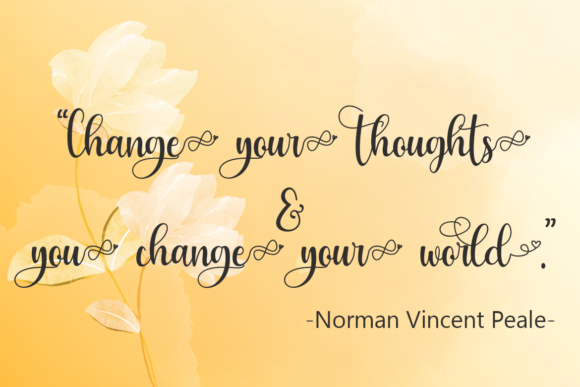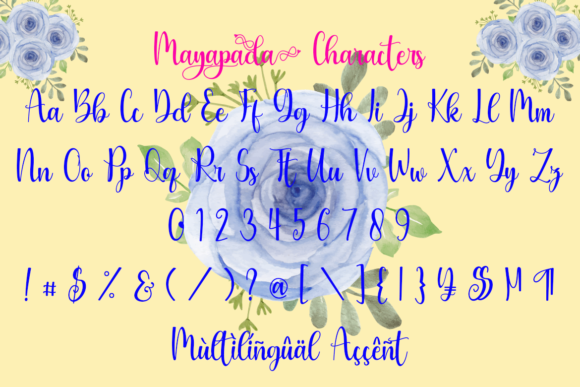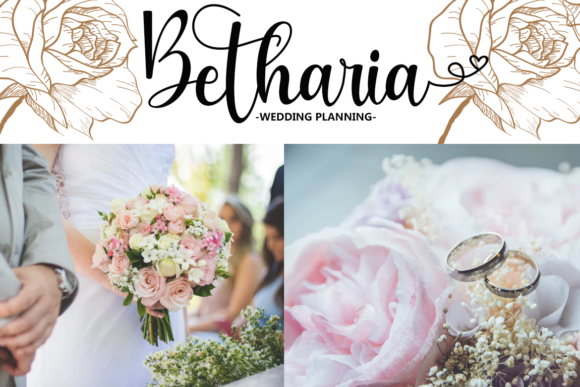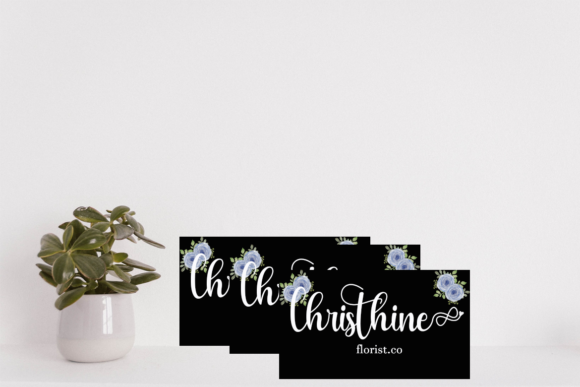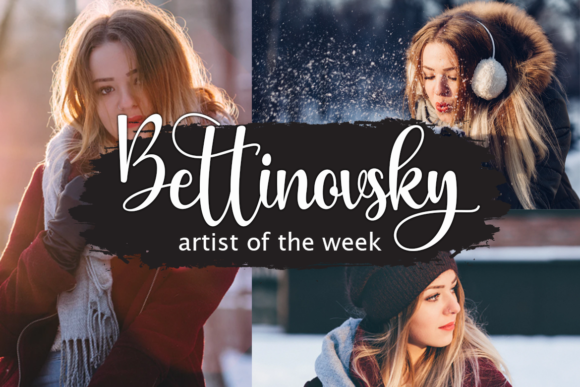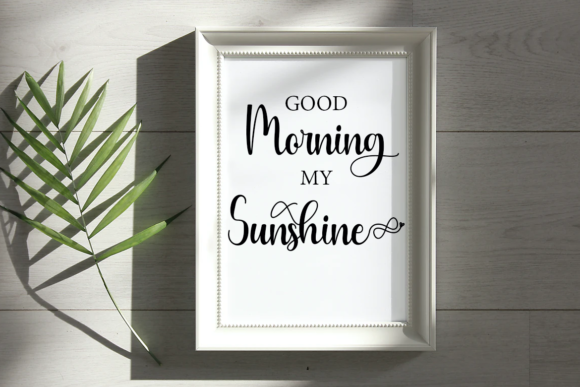
Introduction to Mayapada Font Font
Fonts play a crucial role in design, and the Mayapada Font font is a typeface that brings both character and versatility to any project. Whether you’re working on a branding project, a website, or a print design, the Mayapada Font font offers a unique style that can elevate your work.
Mayapada is an enchanting handwritten font.
This versatile script font has a wide spectrum of applications ranging from greeting cards to headlines and is guaranteed to add a romantic feel to your next project This font is PUA encoded which means you can access all of the beautiful glyphs and swashes with ease.
Key Features of Mayapada Font Font
Why Choose Mayapada Font Font?
The Mayapada Font font is more than just a typeface – it’s a design tool that helps you communicate your message with style and clarity. Its unique character set and versatile design make it suitable for a wide range of applications, from elegant invitations to bold headlines.
With its carefully crafted letterforms and balanced proportions, the Mayapada Font font ensures readability and visual appeal across all mediums.
What makes Mayapada Font font special?
The Mayapada Font font stands out with its unique design, exceptional readability, and versatility across various design applications.